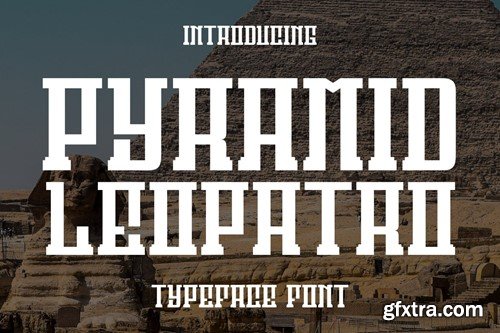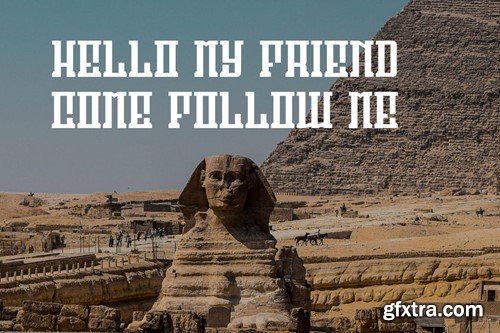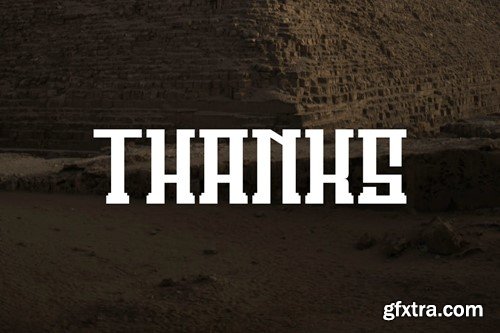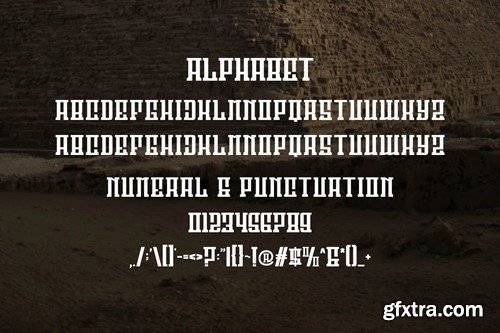
金字塔李奥帕多 - 展示字体 YFYN27N
Pyramid Leopatro - Display Font
Introducing Pyramid Leopatro Modern Serif. Pyramid Leopatro is a modern and simple font, best used as a display for headings, logos, branding, magazines, product packaging and invitations. Pyramid Leopatro come with clean lines and smooth curves give any project an extra touch of class. What you get: Thank you.